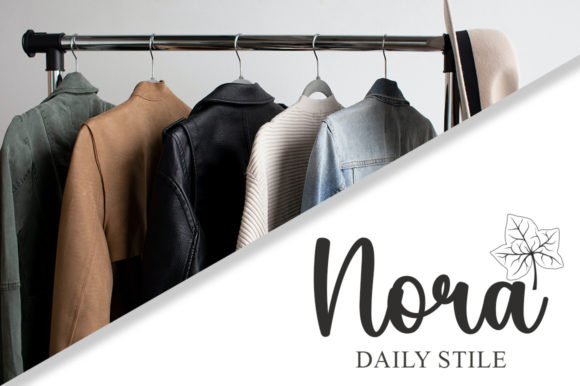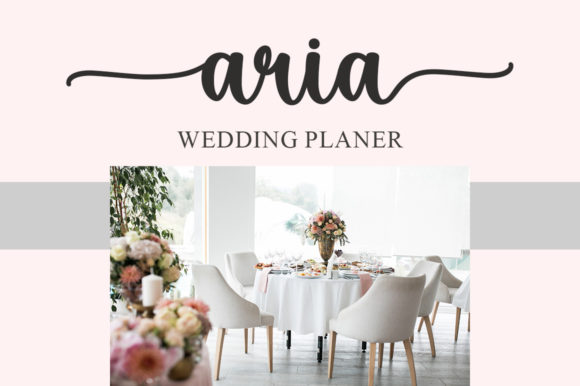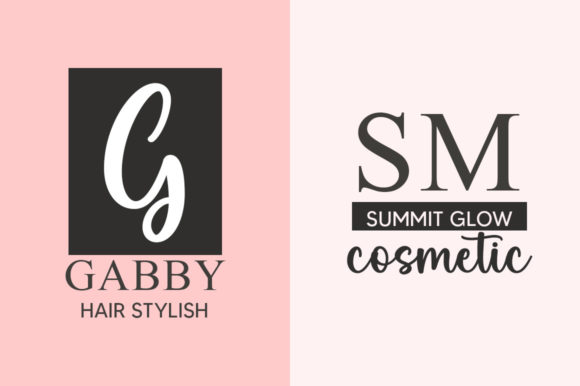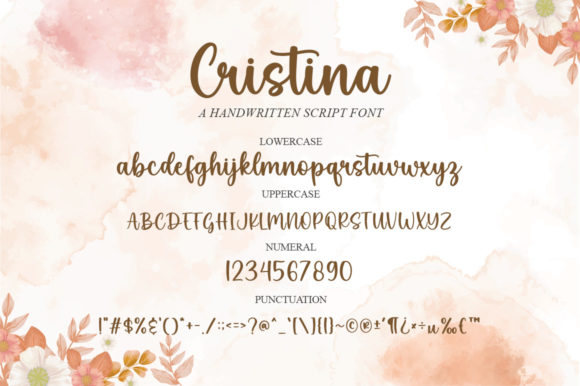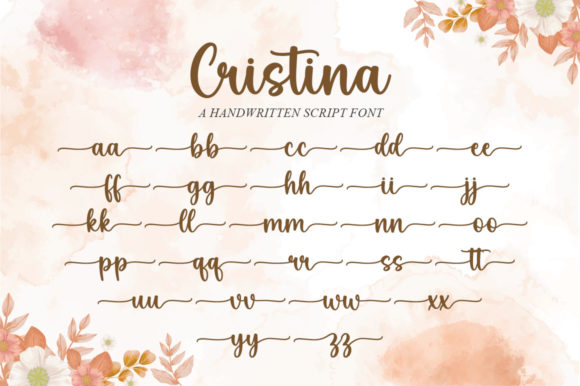
Cristina Font: Add a Touch of Magic to Your Designs
Are you looking for a font that can add a dash of personality and whimsy to your designs? Look no further than Cristina Font, a beautiful handwritten font that is sure to captivate your audience. With its unique and elegant style, Cristina Font is perfect for a wide range of design projects, from invitations and greeting cards to logos and business cards.
What Makes Cristina Font So Special?
Cristina Font is a truly magical handwritten font that looks ravishing on any design that needs a customized touch. Its elegant and flowing script is perfect for adding a touch of sophistication and personality to your projects. Whether you’re a designer, crafty DIY enthusiast, or small business owner, Cristina Font is a versatile and beautiful font that can help you stand out from the crowd.
Cristina Font is a versatile font that can be used for a wide range of design projects, including:
- Invitations: Whether you’re planning a wedding, birthday party, or baby shower, Cristina Font is the perfect choice for creating beautiful and elegant invitations that set the tone for your special event.
- Thank You Cards: Show your appreciation and gratitude with beautifully designed thank you cards featuring Cristina Font.
- Quotes: Add a touch of inspiration and motivation to your quotes with Cristina Font, perfect for social media posts, blogs, or print materials.
- Greeting Cards: Create personalized and heartfelt greeting cards for any occasion, from holidays to birthdays and more.
- Logos: Use Cristina Font to create a unique and memorable logo for your business or brand.
- Business Cards: Stand out from the competition with beautifully designed business cards featuring Cristina Font.
Why Choose Cristina Font?
So why choose Cristina Font over other fonts? Here are just a few reasons why Cristina Font is a top choice among designers and crafters:
- Unique and Elegant Style: Cristina Font has a one-of-a-kind style that is both elegant and playful, making it perfect for a wide range of design projects.
- Handwritten with Love: Cristina Font is a handwritten font, which means it has a personal and authentic touch that is hard to replicate with digital fonts.
- Easy to Read: Despite its elegant style, Cristina Font is easy to read and understand, making it perfect for body text and headlines.
- Highly Versatile: Cristina Font can be used for a wide range of design projects, from digital designs to print materials.
Tips for Using Cristina Font
Here are a few tips for getting the most out of Cristina Font:
- Pair with Other Fonts: Cristina Font pairs well with other fonts, so don’t be afraid to experiment with different combinations to find the perfect look for your design.
- Use for Headlines and Titles: Cristina Font is perfect for headlines and titles, where its elegant style can really shine.
- Add a Personal Touch: Use Cristina Font to add a personal touch to your designs, whether it’s a handwritten note or a custom illustration.
In conclusion, Cristina Font is a beautiful and versatile handwritten font that is perfect for adding a touch of magic to your designs. With its unique and elegant style, Cristina Font is sure to captivate your audience and help you stand out from the crowd. Whether you’re a designer, crafty DIY enthusiast, or small business owner, Cristina Font is a top choice for any design project that needs a customized touch.